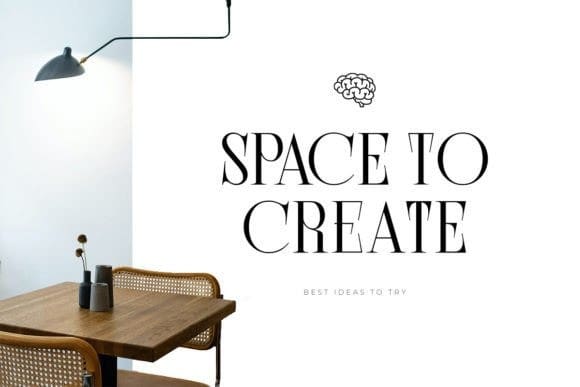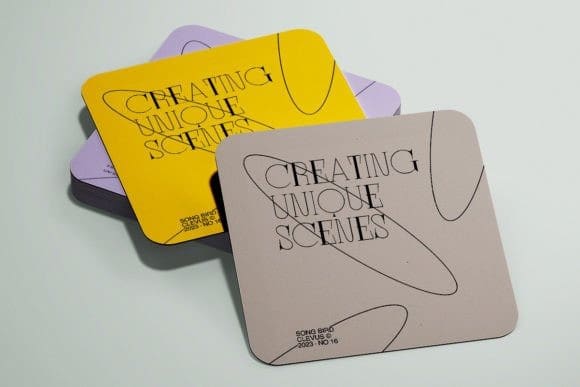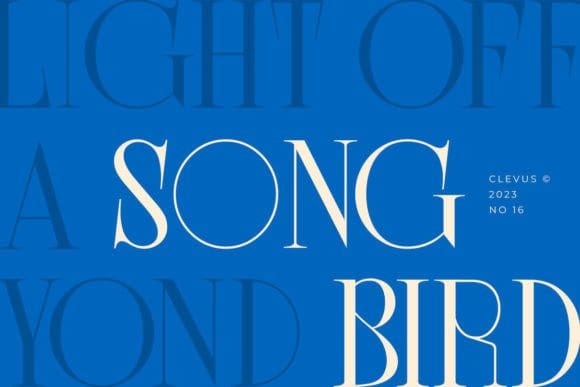
Song Bird Font
Song Bird Font is a modern serif font that draws inspiration from the iconic style of the era. Its regular and edgy lines make it the perfect choice for creating retro-inspired logos, fashion brand, magazine, clothes, lettering, quotes, and other design materials. With Song Bird, you can effortlessly infuse your work with a touch of nostalgia and capture the essence of the 90s in your designs.